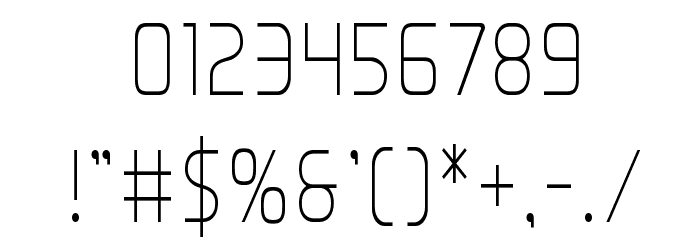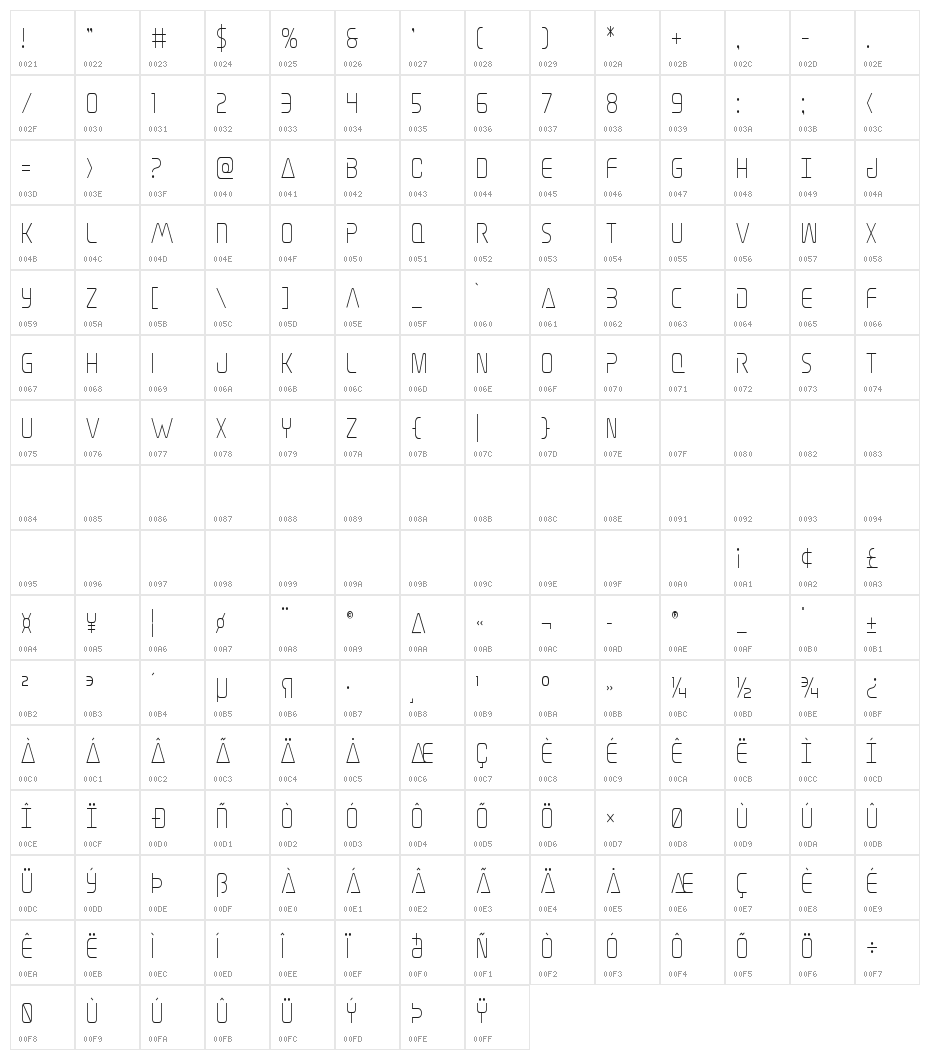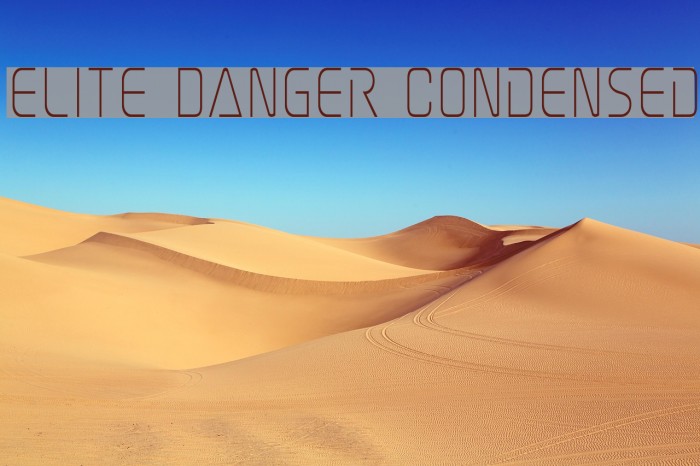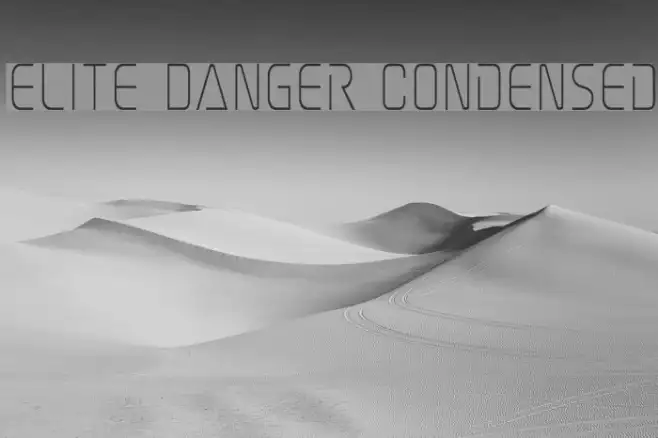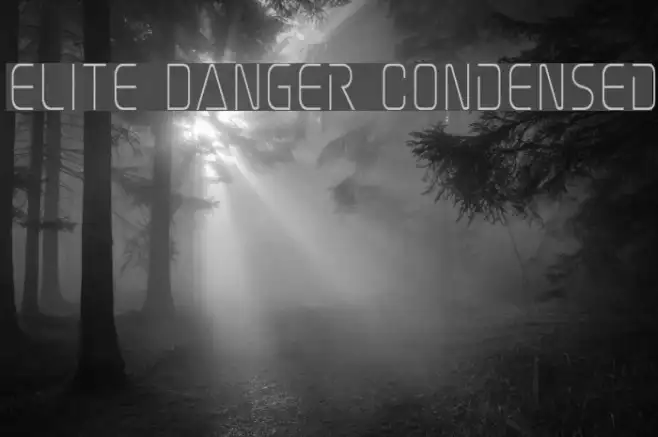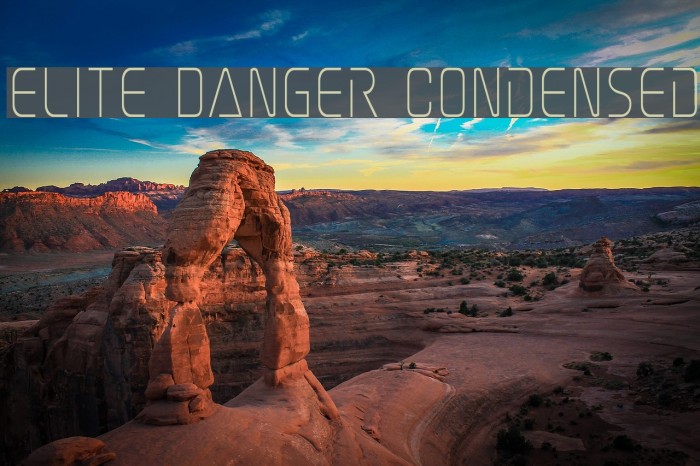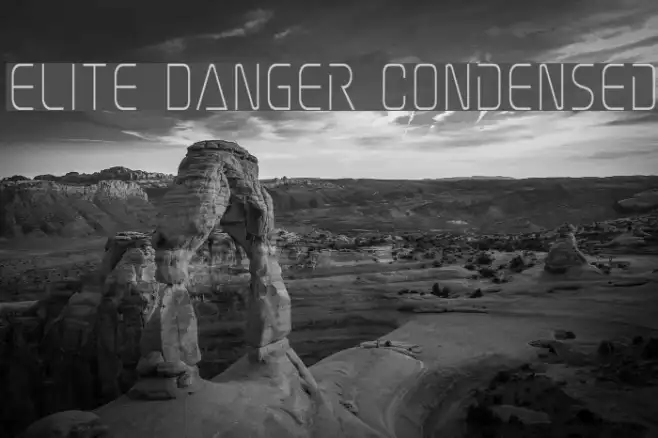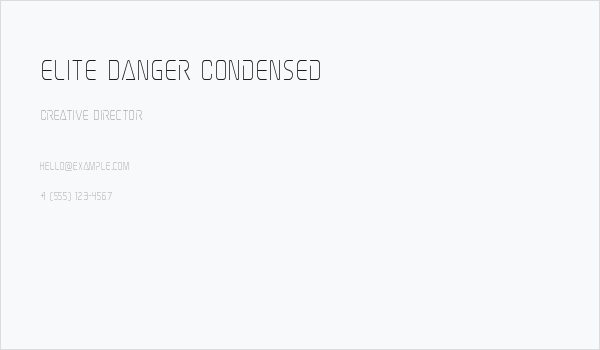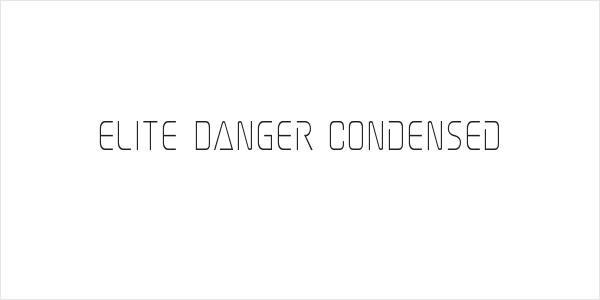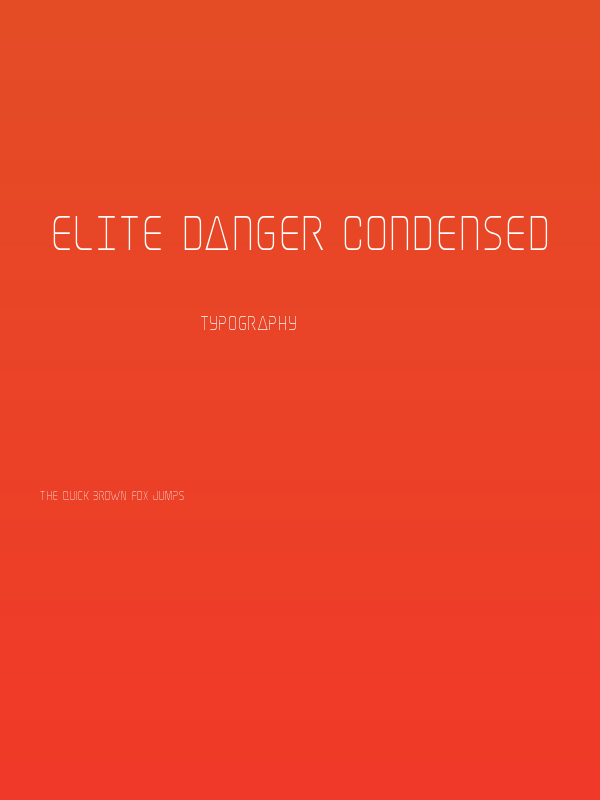
Elite Danger Condensed Font
Elite Danger Condensed Description
This font features a modern, geometric design with a condensed width, giving it a sleek and futuristic appearance. The characters are composed of straight lines and sharp angles, creating a clean and minimalist aesthetic. The uppercase letters are uniform in height, while the lowercase letters maintain a consistent style, enhancing readability. The numerals and special characters are designed to match the overall geometric theme, ensuring a cohesive look across all text. The font's simplicity and precision make it suitable for a variety of design applications.
| Use Case | Headlines, Logos, Digital Interfaces |
| Proposed Projects | Ideal for technology branding, sci-fi themed projects, modern advertising, and digital interfaces. |